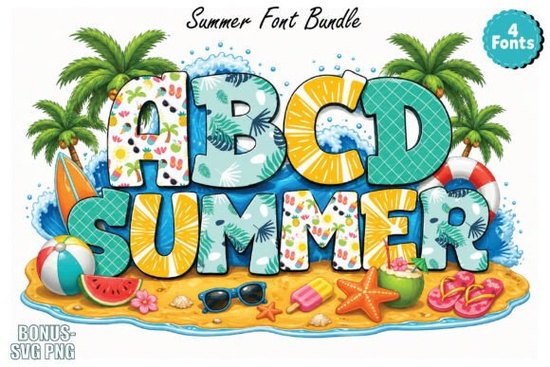
When you need to add a cheerful, seasonal vibe to your projects, the Summer Font is a highly practical choice. This hand-drawn doodle style brings beach life, fruits, and sunny elements right into your typography. Whether you are making t-shirts for a vacation shop or designing stickers for a seasonal planner, these colorful letters give your work a playful, authentic feel without needing extra graphic elements.
How does the color display work in different software?
What kind of projects work best with doodle-style letters?
Because this style features hand-drawn elements, it naturally fits into casual, fun, and youth-oriented designs. It is particularly useful for:
- Apparel and Merch: Creating eye-catching t-shirts, tank tops, and tote bags for beach resorts or summer camps.
- Sublimation Projects: Adding bright, cheerful text to mugs, tumblers, and coasters without the design looking too corporate.
- Stickers and Planners: Designing functional yet cute planner inserts, habit trackers, and journaling pages.
- Social Media Graphics: Making Instagram stories or Pinterest pins stand out with a relaxed, handwritten aesthetic.